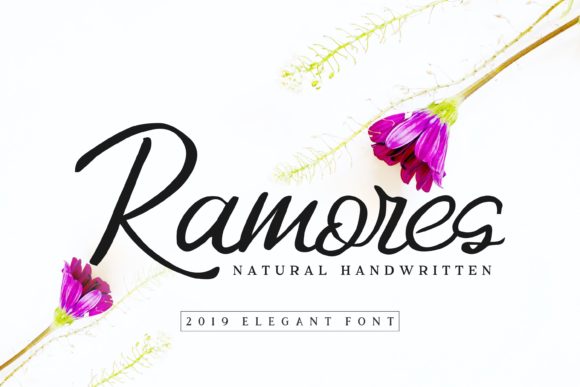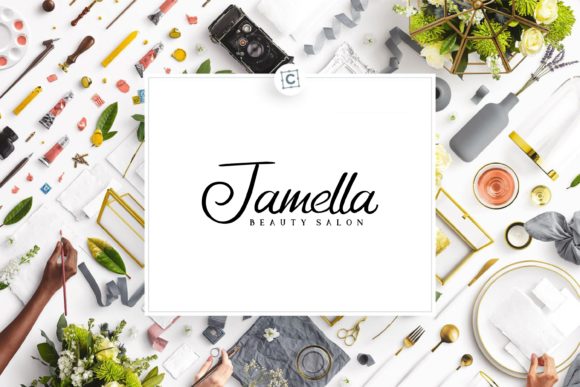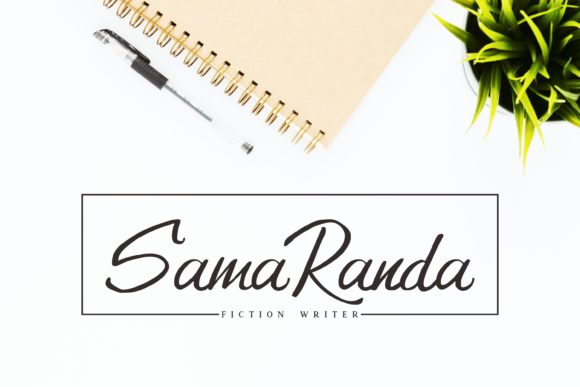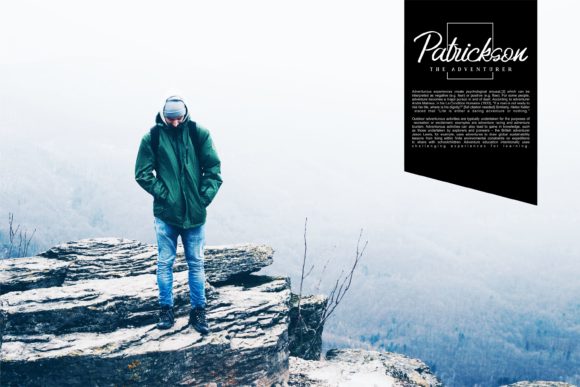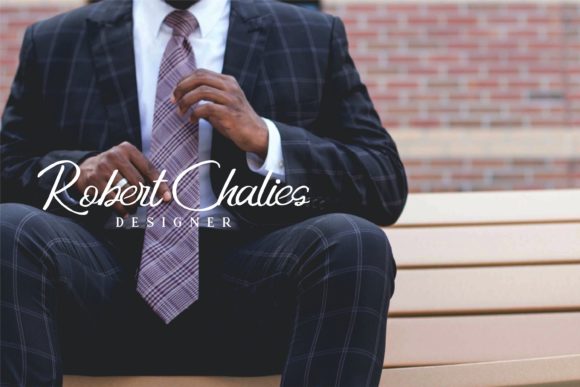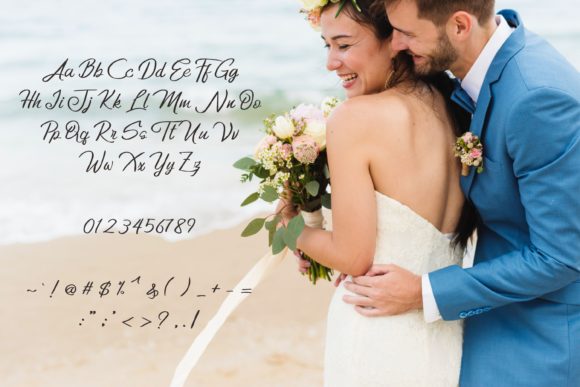
Ramores Font
About Ramores Font
Ramores is a romantic, unique and original handwritten font that is easy to remember. Fall in love with its adorable charm and use it for any creative project that needs beautiful nuances.